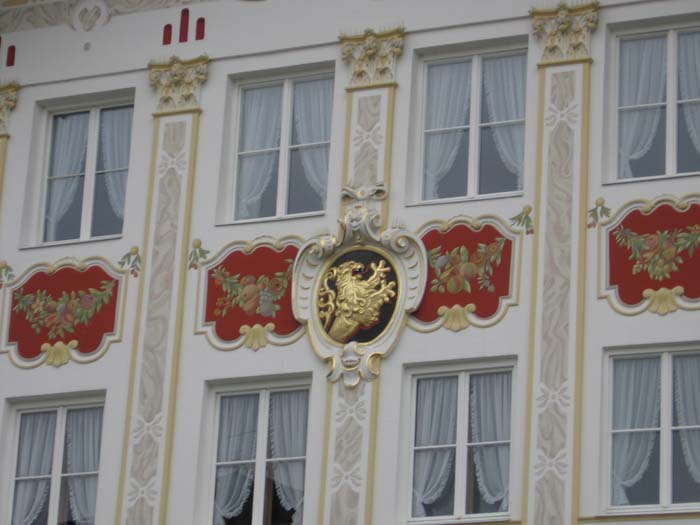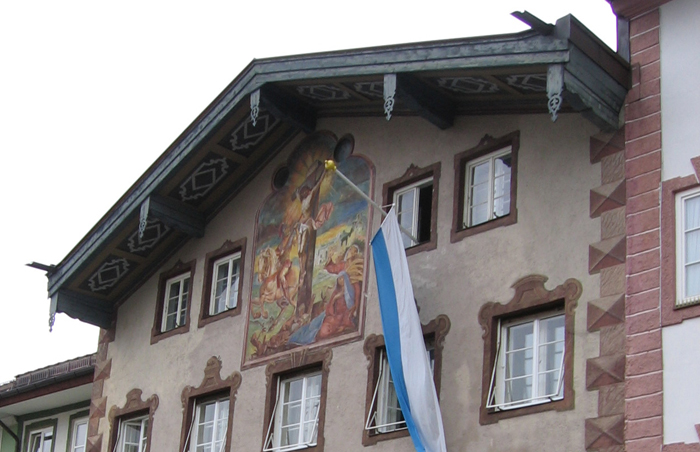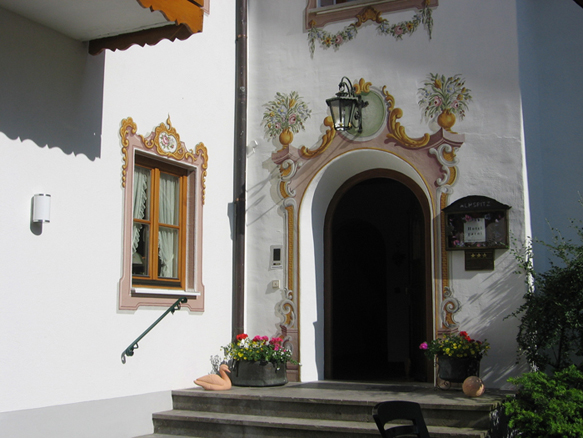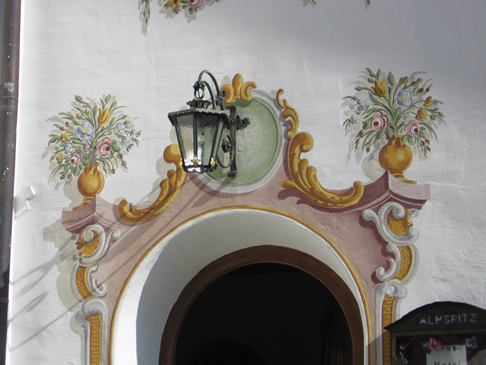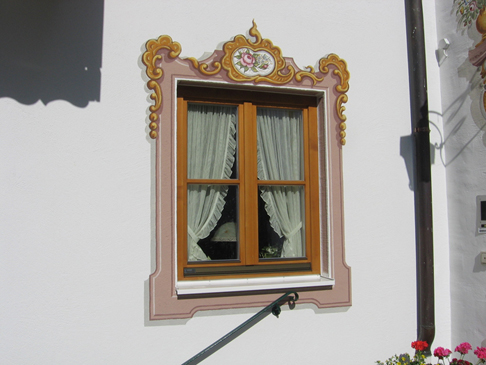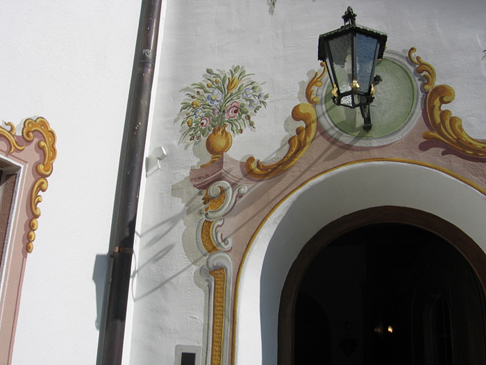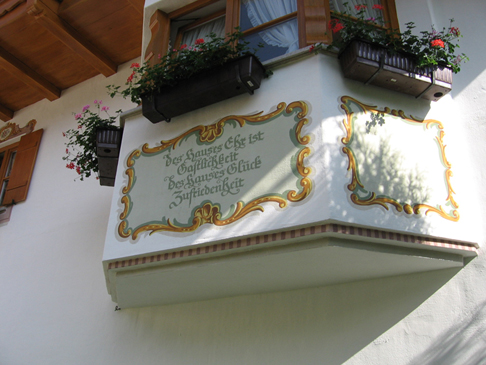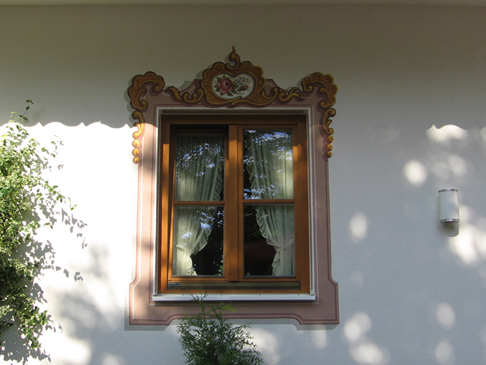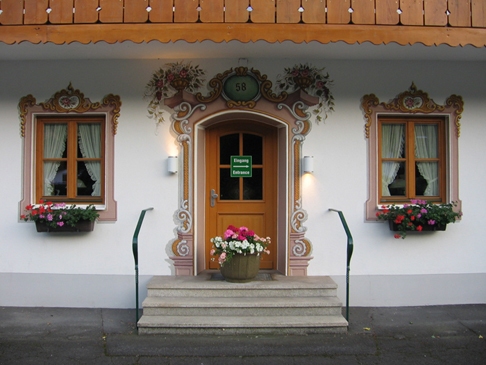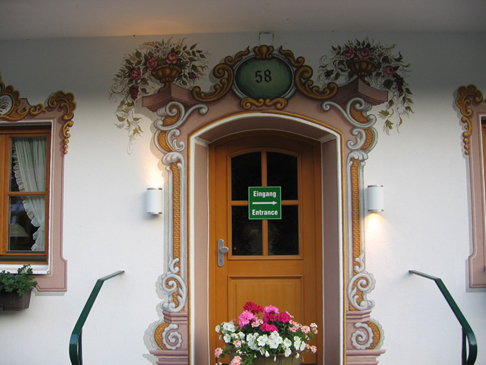
Handpainting tradition of Bavarian and Tirolan houses
During my cycling trip through the Alps I sa a lot of high quality hand painted murals.
Here are some pictures I took of them.
Beautiful stuff there Erik, I wish I could take a bike ride and see beauty like that.
Wow!
Wow, I got a really good feeling looking at all those hand painted embellishments. Really sets off the buildings! I like the way
they include the painted shadows to make the elements look so dimensional. It all makes it seem so quaint and unique. Sort of cheery-like.
Just think if the graffiti artists in L.A. could aspire to doing handsome architectural additives like this, how picturesque and bright
Los Angeles could become. A true photo opportunity with unique areas people would flock to see.
This was lovely to share, I reckon the little dutch boy was in the doorway of a sweet factory :D
Nothing short of beautiful! Can't help but wonder what the
sign police of our local communities would have to say if we
tried to do something similar. I think I'm going to paint my
garage door and see if I don't ruffle some feathers.
Those pictures are very beautiful and very inspiring. I'm half finished a small (8'x8') mural from a picture I took of one of the buildings in Prague. It is an illusionary mural and it makes me really appreciate the depth and realism in the pictures you posted. Hopefully I'll find time to finish it soon and shoot you off a photo. :) Don't expect it to be that good though . ;) If you have more pictures of these painted houses I'd love to see them!